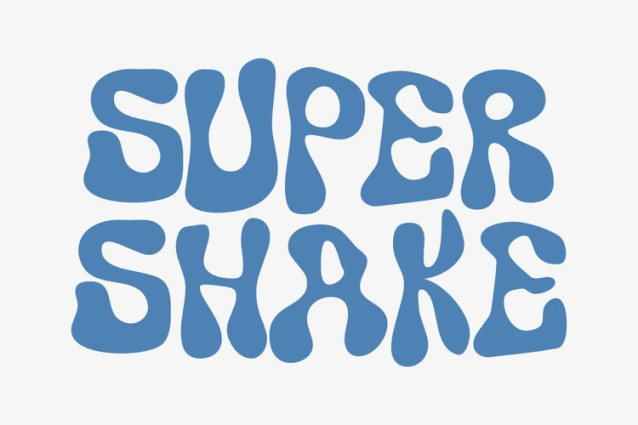
Super Shake Font
Super Shake Font, Suitable for any design needs : logo, branding, modern advertising design, logos, poster quote, book / cover Title, editorial design, website / blog, card, t-shirts, and any hand-lettered needs.